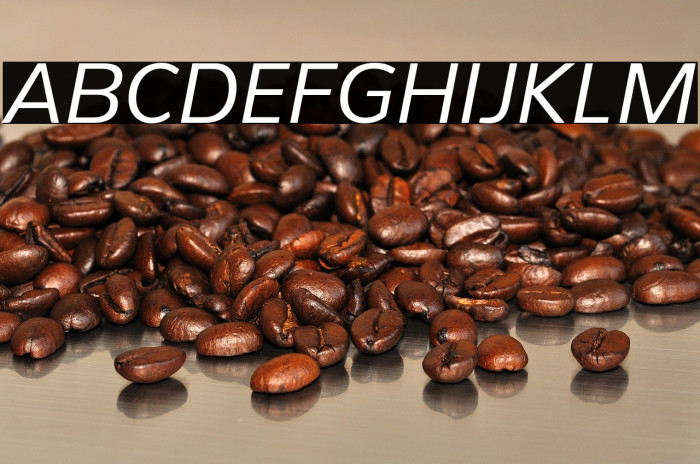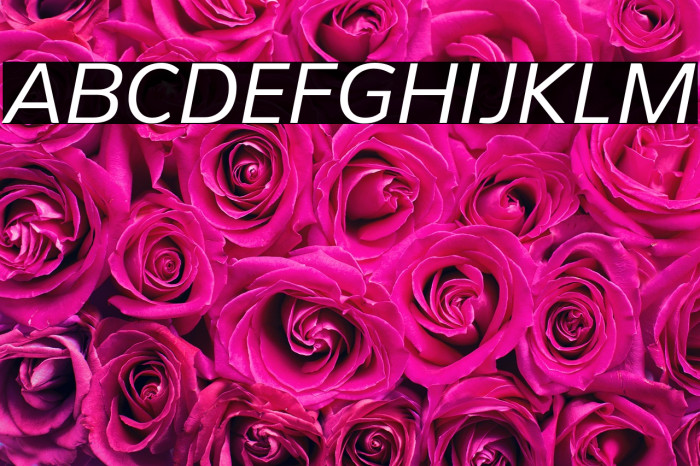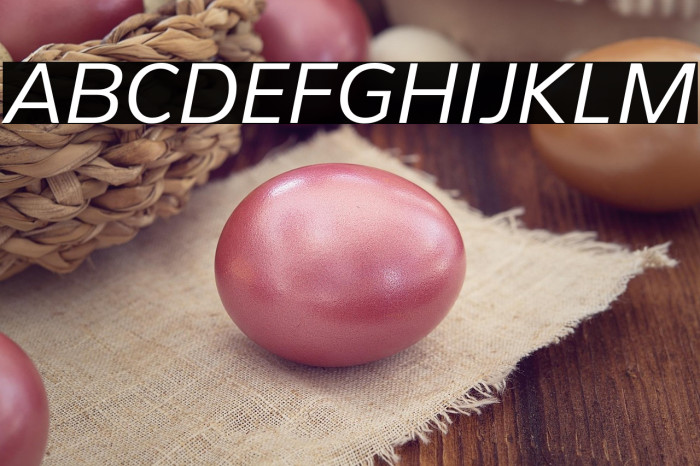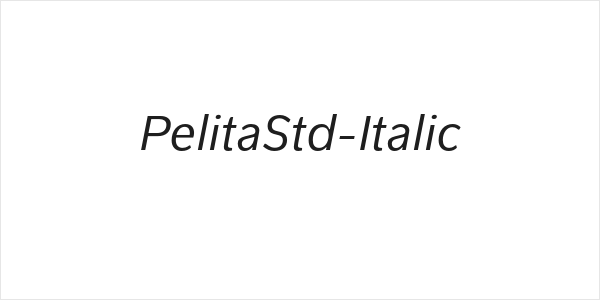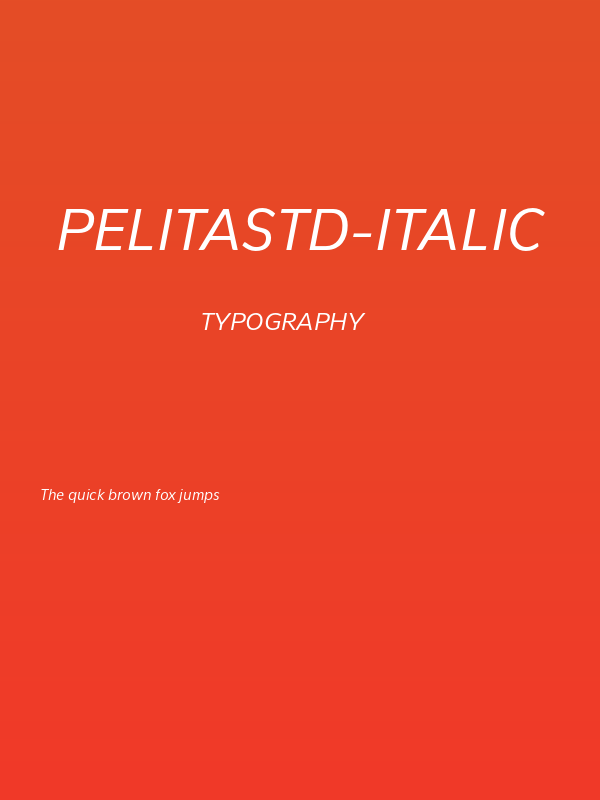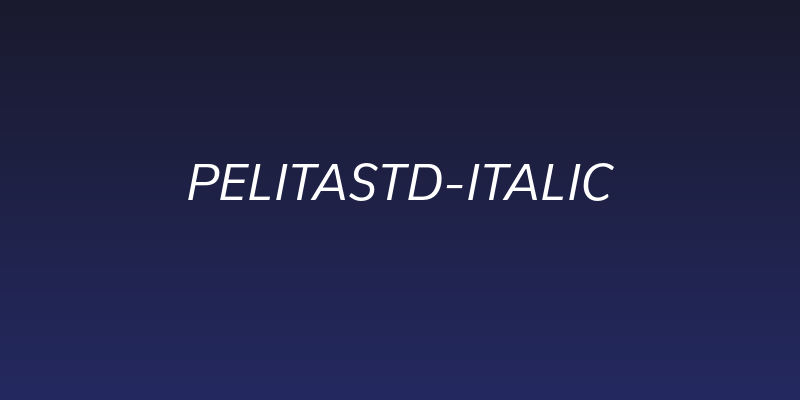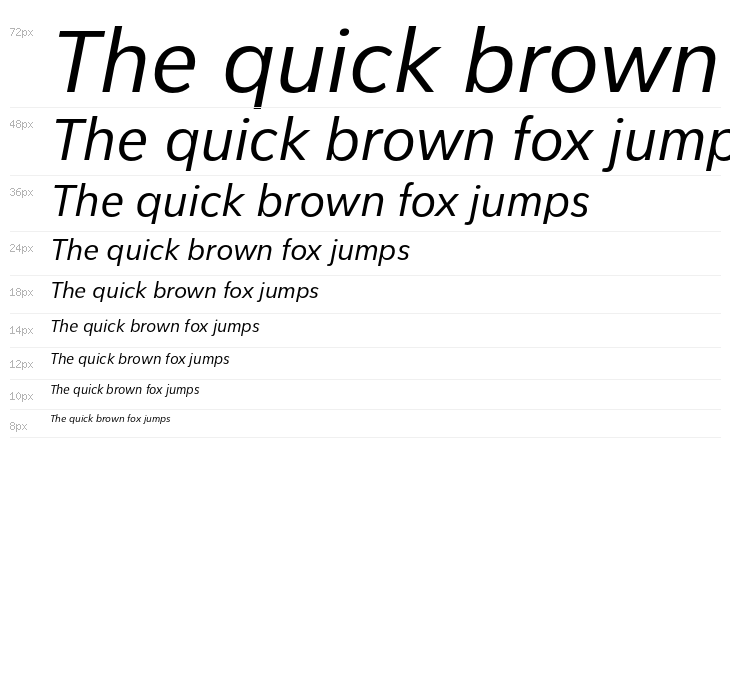
PelitaStd-Italic Font
PelitaStd-Italic Description
This font features a clean and modern design with a slight slant, giving it an elegant and dynamic appearance. The characters are well-proportioned with a consistent stroke width, providing a harmonious and balanced look. The uppercase letters are bold and assertive, while the lowercase letters maintain a smooth and flowing style. The numerals are clear and easy to read, making them suitable for various applications. Special characters are distinct and well-integrated into the overall design, ensuring versatility in usage. The font's italic style adds a touch of sophistication, making it ideal for both formal and informal contexts.